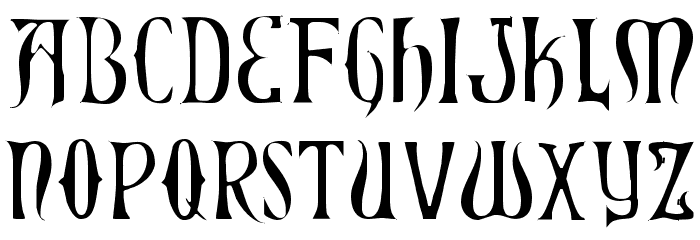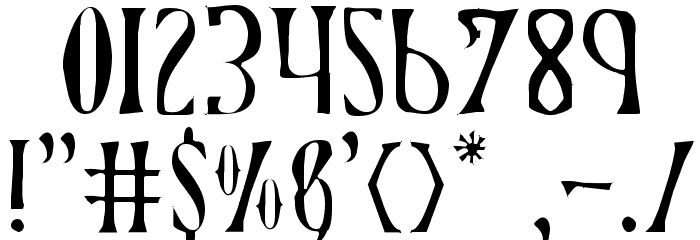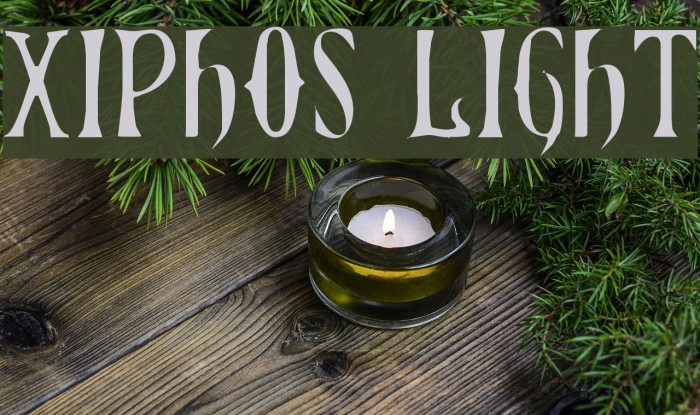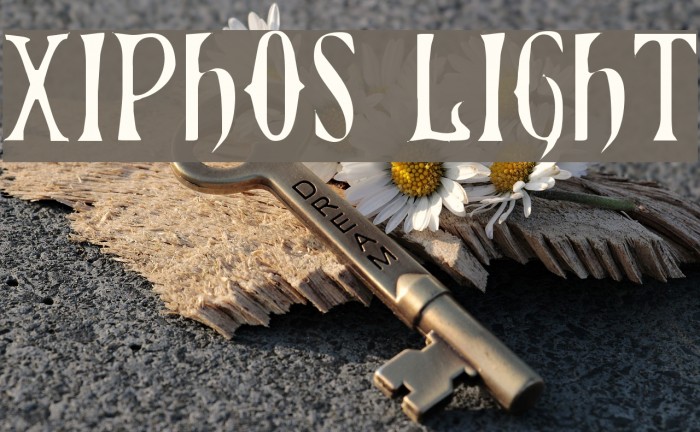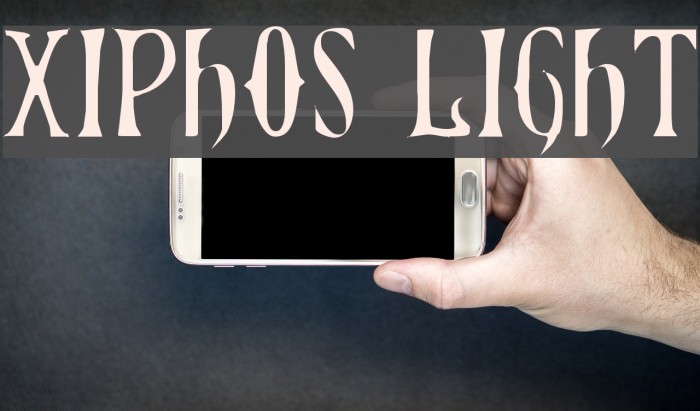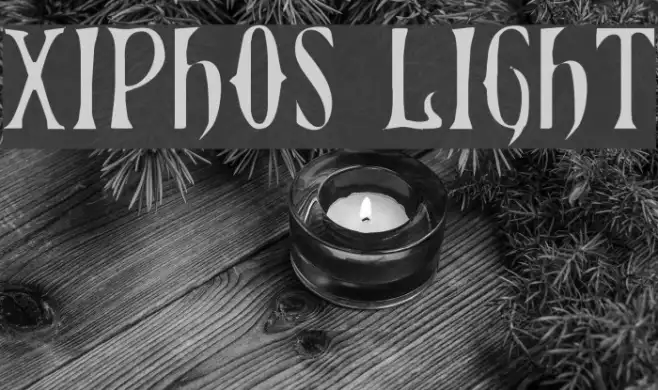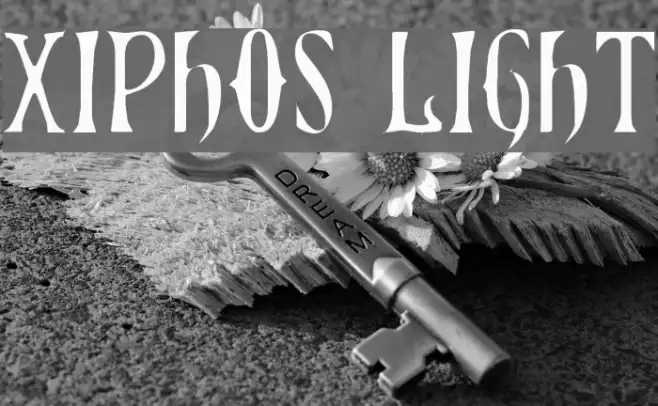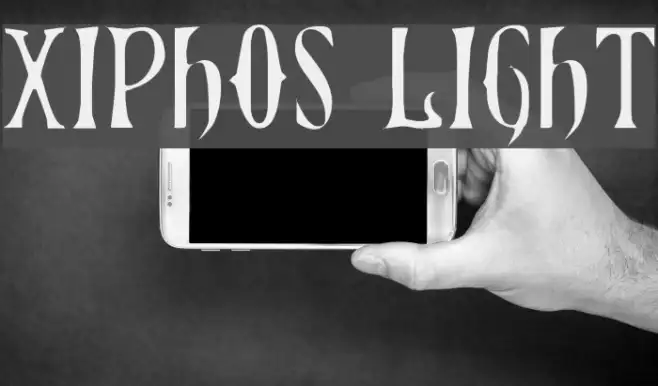
Xiphos Light Font
This font features a unique and artistic design with a strong decorative flair. The characters are characterized by sharp, angular edges and dramatic curves, giving it a bold and striking appearance. The uppercase letters have a medieval, almost gothic feel, while the lowercase letters maintain a consistent style, enhancing the overall cohesiveness. The numbers and special characters follow the same aesthetic, making them visually compatible with the alphabet. This font is perfect for projects that require a distinctive and eye-catching look, such as posters, logos, or themed event invitations.
A decorative font with sharp, angular edges and a gothic flair.
- Proposed Projects: Ideal for posters, logos, themed event invitations, and artistic designs.